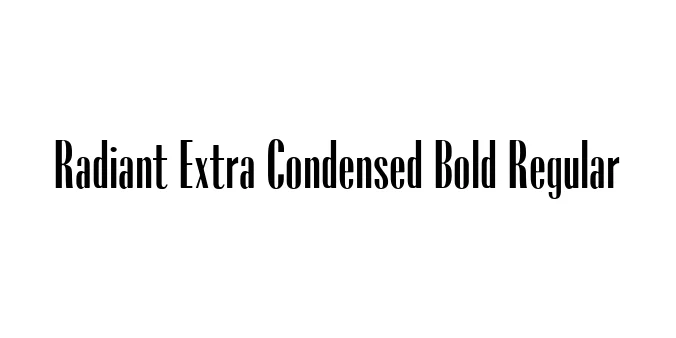
Radiant Extra Condensed Bold Regular
Designed by Robert Hunter Middleton
Radiant Extra Condensed Bold is a standout member of the Radiant family, originally designed by the prolific Robert Hunter Middleton for the Ludlow Typograph Company between 1938 and 1940. This typeface is a hallmark of the 'thick-and-thin' sans-serif style, which incorporates high stroke contrast usually reserved for serif faces. The Extra Condensed Bold variant is specifically engineered for high-impact verticality, offering an authoritative and sophisticated presence in space-constrained layouts.
Historically, the Radiant family represented a departure from the more geometric or humanist sans-serifs of its time by embracing a calligraphic influence. This gives the font a unique elegance and a rhythmic quality that remains popular in modern editorial design. Its bold, condensed nature makes it exceptionally effective for cinematic titles, vintage-inspired advertising, and powerful headlines that require a touch of mid-century modern flair.
Radiant Extra Condensed Bold Regular Best Uses
Perfect for high-impact magazine headlines and vertical cover titles.
Ideal for cinematic or event posters where bold, narrow typography is required.
Great for grabbing attention in print ads while maintaining a sophisticated look.
Suitable for logos that need a blend of vintage authority and modern clarity.